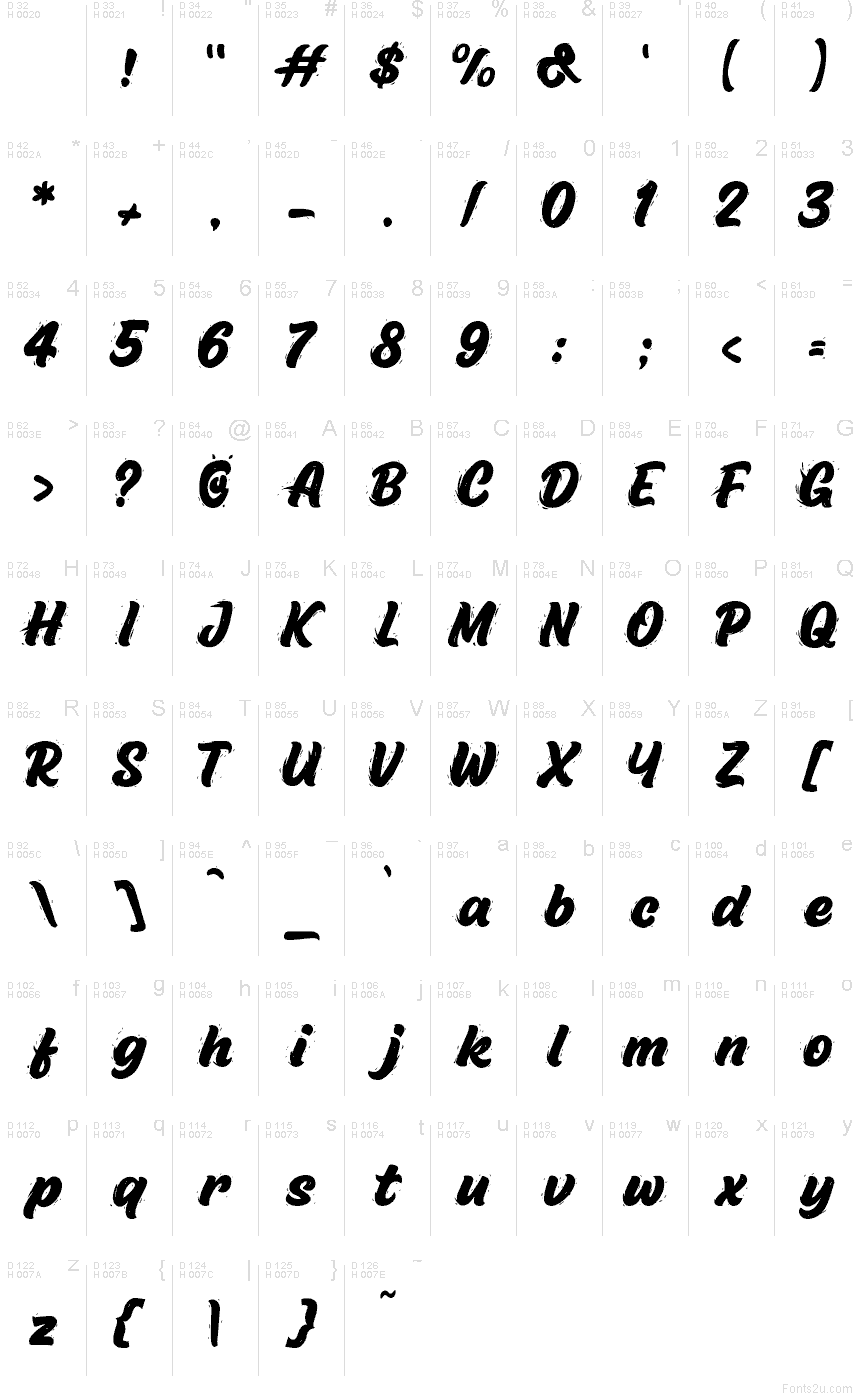
Ducks Fiesta
Ducks Fiesta font by BlackFridayFont FMF is a free brush script typeface with the wild, inky energy of a paint-loaded marker dragged fast across paper. Bold, rounded strokes are punched up with rough splatters and scuffed edges, so every word feels loud, messy, and full of motion—like a logo sketched on a festival poster right before the doors open. It’s playful without feeling childish, and its heavy weight holds up even on busy, colorful backgrounds.
Using Ducks Fiesta font, you can throw instant party vibes onto event flyers, food truck branding, drink labels, social media promos, bold merch graphics, or streetwear tags. The spacing feels tight and punchy, which helps short phrases hit hard in big sizes. This free font pairs well with a clean, light sans serif for supporting text—let Ducks Fiesta shout the headline while the sans keeps the details readable.